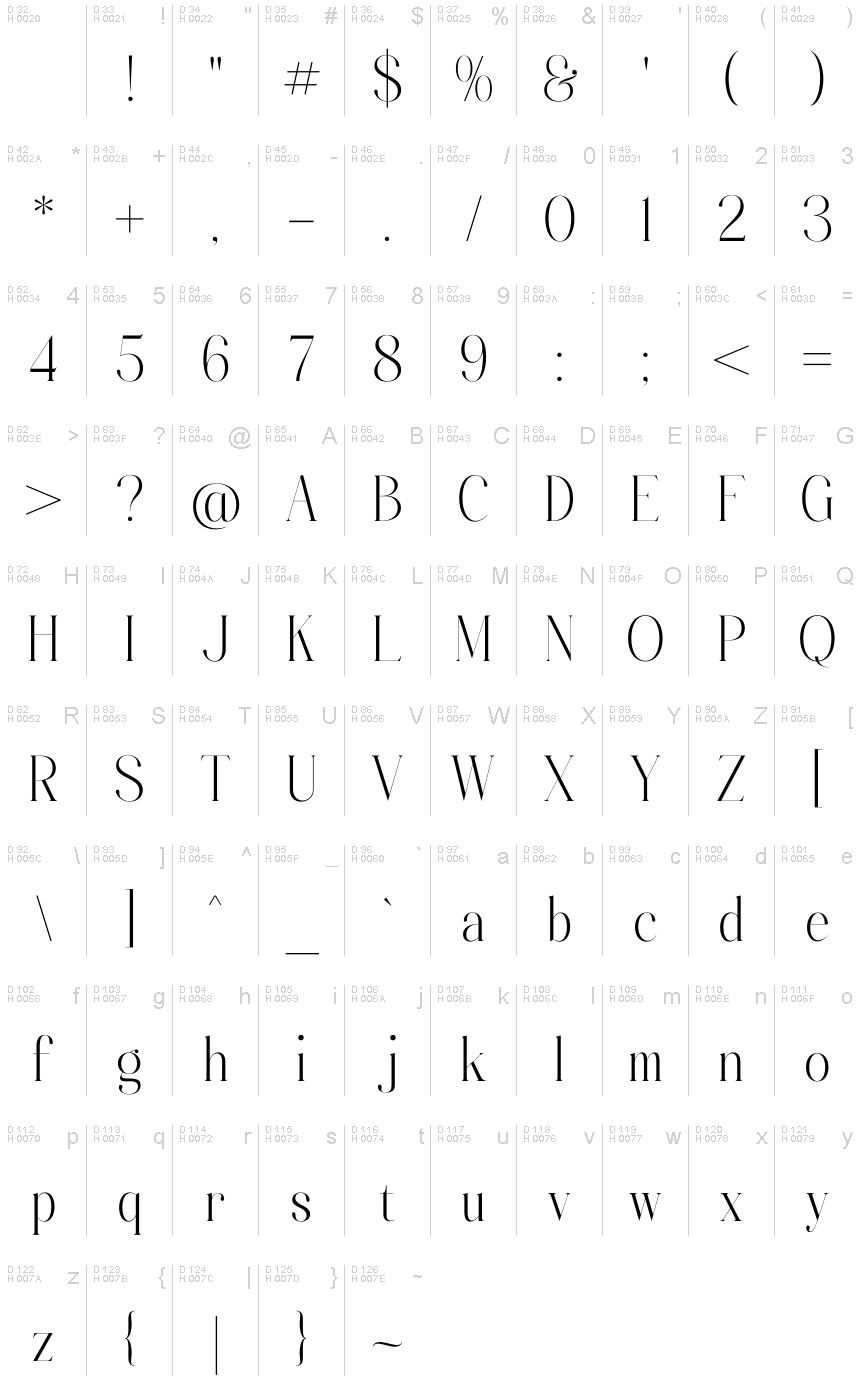
Zackerman
Zackerman font, crafted by Storytype Studio, is a striking serif with a condensed design that exudes elegance and sophistication. Its refined lines and sharp serifs give it a timeless appeal, making it a standout choice for those seeking to convey both modernity and tradition in their projects. The aesthetic allure of Zackerman lies in its ability to maintain clarity while offering an intricate, yet clean appearance.
Ideal for branding, editorial design, or any creative project that demands a touch of class, this free font provides versatility across various design contexts. Whether used for headlines or body text, Zackerman's clarity and style ensure readability without compromising on visual impact. Perfect for designers looking to download a unique typeface that enhances the elegance of their work.